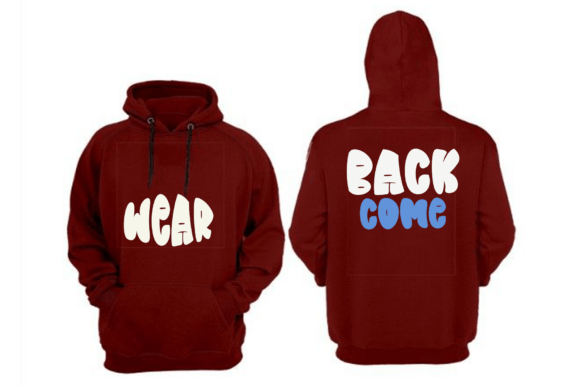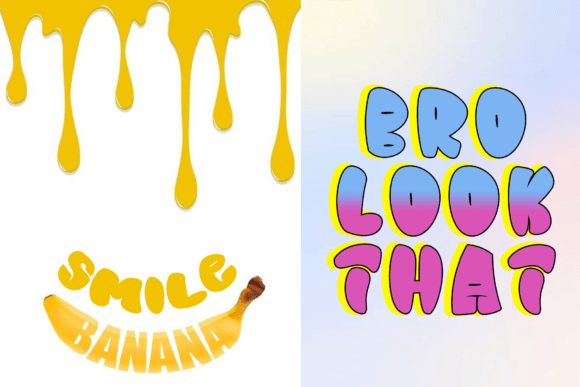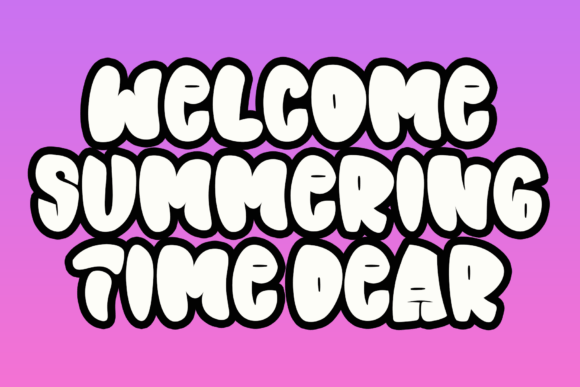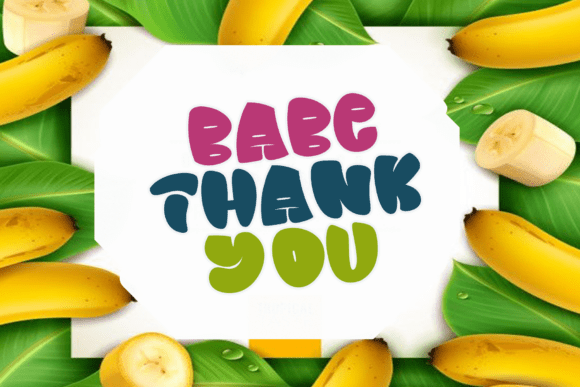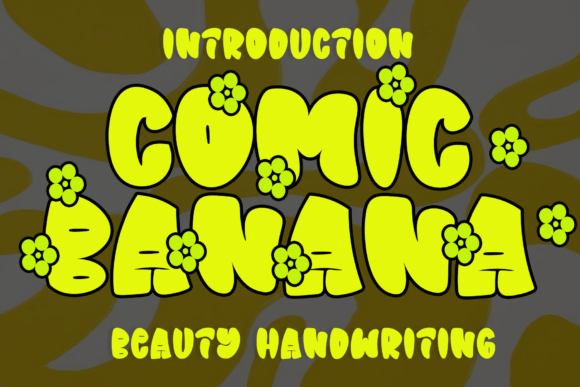
Introducing Comic Banana Font: The Ultimate Choice for Fun and Playful Designs
Are you tired of using the same old fonts for your designs? Look no further than Comic Banana Font, a clean and casual display font that’s perfect for creating fun, engaging, and playful visuals. With its smooth lines, playful curves, and breezy aesthetic, Comic Banana is sure to add a splash of sunshine to any creative project.
The Perfect Font for Summer Vibes
Comic Banana Font is specifically designed to evoke the feeling of warmth and relaxation, making it the perfect choice for summer-themed designs. Whether you’re creating posters for a beach festival, social media graphics for a summer sale, or event flyers for a casual outdoor gathering, Comic Banana is the ideal font to capture the carefree spirit of the season.
Key Features of Comic Banana Font
- Clean and Casual Design: Comic Banana Font boasts a clean and casual design that’s perfect for creating effortless, friendly visuals.
- Smooth Lines and Playful Curves: The font’s smooth lines and playful curves create a fun and engaging tone that’s sure to capture the attention of your audience.
- Breezy Aesthetic: With its breezy, laid-back aesthetic, Comic Banana Font adds a touch of warmth and relaxation to any design.
- Perfect for Lighthearted Branding: Whether you’re creating branding materials for a summer-themed business or just want to add a playful touch to your brand, Comic Banana Font is the perfect choice.
Use Cases for Comic Banana Font
So, what can you use Comic Banana Font for? The possibilities are endless! Here are a few ideas to get you started:
- Summer Posters: Create eye-catching posters for summer events, sales, or promotions with Comic Banana Font.
- Event Flyers: Design fun and engaging flyers for outdoor events, festivals, or concerts with Comic Banana Font.
- Social Media Graphics: Add a playful touch to your social media graphics with Comic Banana Font, perfect for summer-themed posts or promotions.
- Lighthearted Branding: Use Comic Banana Font to create branding materials that evoke a sense of fun and playfulness, perfect for summer-themed businesses or products.
Why Choose Comic Banana Font?
So, why should you choose Comic Banana Font for your next design project? Here are just a few reasons:
- Unique and Eye-Catching: Comic Banana Font is a unique and eye-catching font that’s sure to stand out from the crowd.
- Easy to Read: Despite its playful design, Comic Banana Font is easy to read, making it perfect for use in a variety of design applications.
- Versatile: Comic Banana Font is versatile and can be used in a variety of design contexts, from posters and flyers to social media graphics and branding materials.
- Fun and Engaging: Perhaps most importantly, Comic Banana Font is fun and engaging, making it perfect for designs that need to capture the attention of your audience.
In conclusion, Comic Banana Font is a clean and casual display font that’s perfect for creating fun, engaging, and playful visuals. With its smooth lines, playful curves, and breezy aesthetic, Comic Banana is sure to add a splash of sunshine to any creative project. Whether you’re designing for summer, creating lighthearted branding, or just want to add a playful touch to your designs, Comic Banana Font is the perfect choice.